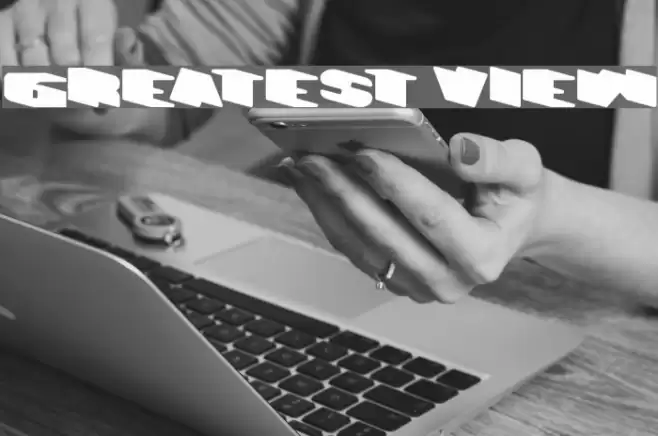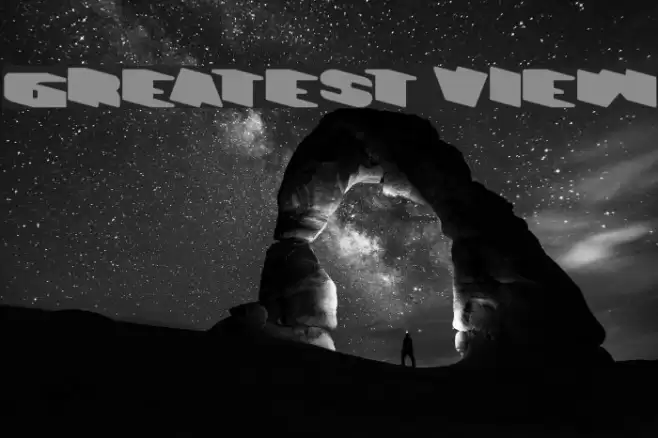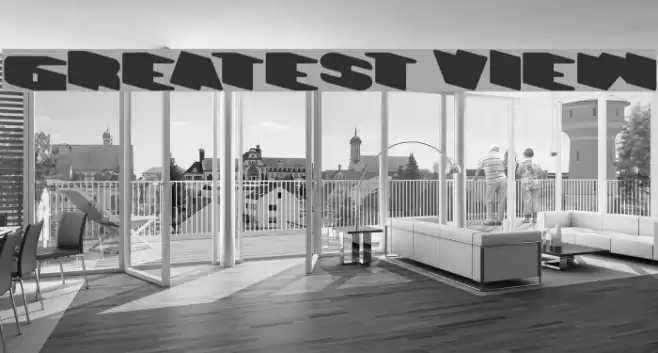
GREATEST VIEW Font
GREATEST VIEW Description
This font features a bold, geometric design with a distinct three-dimensional effect. Each letter is crafted with sharp angles and a blocky appearance, giving it a strong and impactful presence. The characters are uniformly wide, creating a consistent and cohesive look across the alphabet. This style is reminiscent of retro or vintage aesthetics, often seen in signage or posters from the mid-20th century. The font's unique structure makes it stand out, with its thick strokes and minimal contrast between thick and thin lines. It's designed to grab attention and convey a sense of strength and stability.
A bold, geometric font with a three-dimensional effect and retro appeal from Uncategorized fonts.
- Proposed Projects: Ideal for use in posters, signage, branding, and any project requiring a strong visual impact.
- Overall Style: Vintage